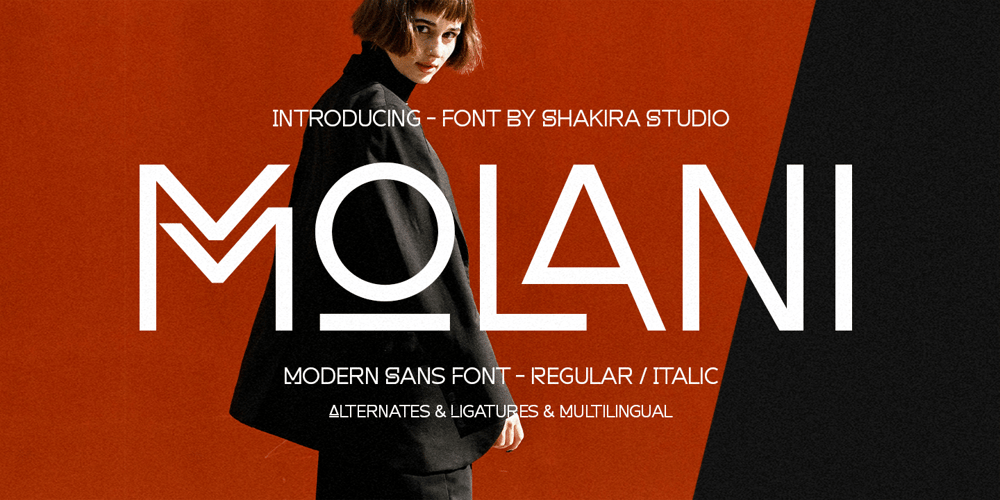
Molani Font Family was designed by Idhham Cholid Rikzano Yahya and published by Shakira Studio. Molani contains 2 styles and family package options. “Introducing Molani – a breakthrough in the realm of Modern Sans Serif Display fonts. Crafted meticulously for a contemporary aesthetic, Molani offers designers the flexibility of Regular and Italic styles, accompanied by an array of stylish alternates and ligatures. Its clean, modern lines ensure outstanding readability across multiple languages, making it a versatile choice for branding, editorial, and digital experiences. Elevate your design work with Molani, the font that blends precision with trendsetting flair.”Here’s what you get: Regular & Italic All Multilingual symbol Opentype features ( ligature, alternate ) Accessible in the Adobe Illustrator, Adobe Photoshop, Adobe InDesign, even work on Microsoft Word. PUA Encoded Characters – Fully accessible without additional design software. Multilingual character supports : (Afrikaans, Albanian, Catalan, Croatian, Czech, Danish, Dutch, English, Estonian, Finnish, French, German, Hungarian, Icelandic, Italian, Lithuanian, Maltese, Norwegian, Polish, Portuguese, Slovenian, Spanish, Swedish, Turkish, Zulu)Follow my shop for upcoming updates, and for more of my work, If you need a custom license or have questions please visit our website: www.shakirastudio.comThank you!Shakira Studio